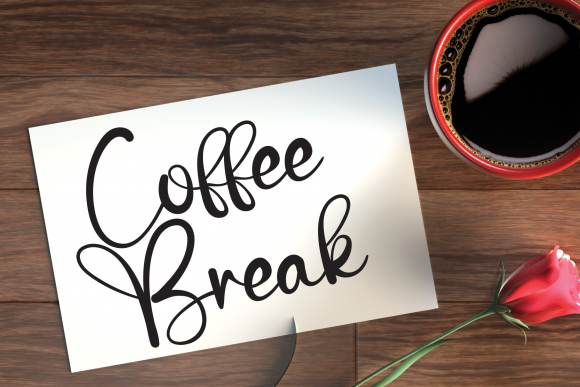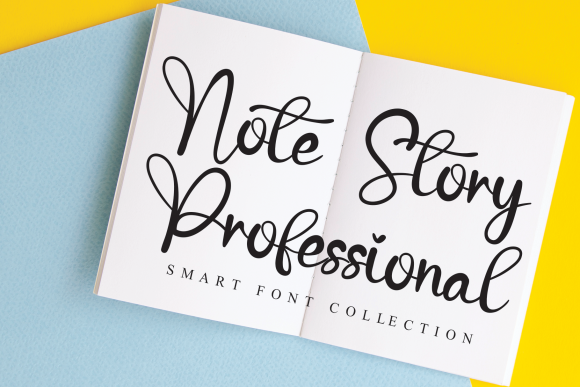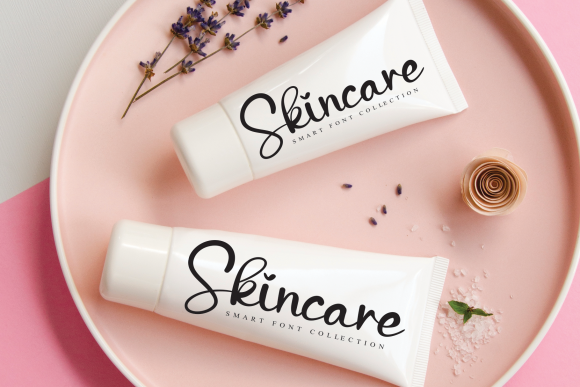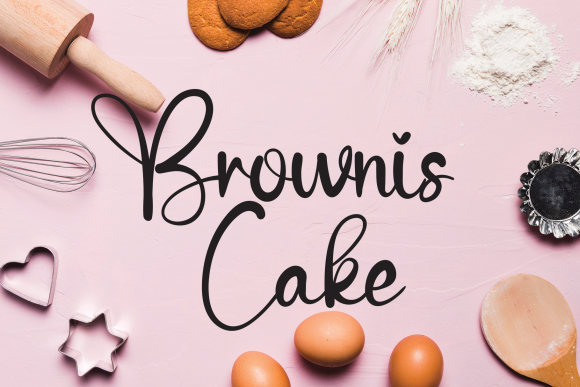
Hello Enjoyment Font
Hello Enjoyment is a sweet and delicate handwritten font. Dainty and joyful, this font will be ideal for writing wedding invitations, cards or any other design that may need a romantic, personalized touch!